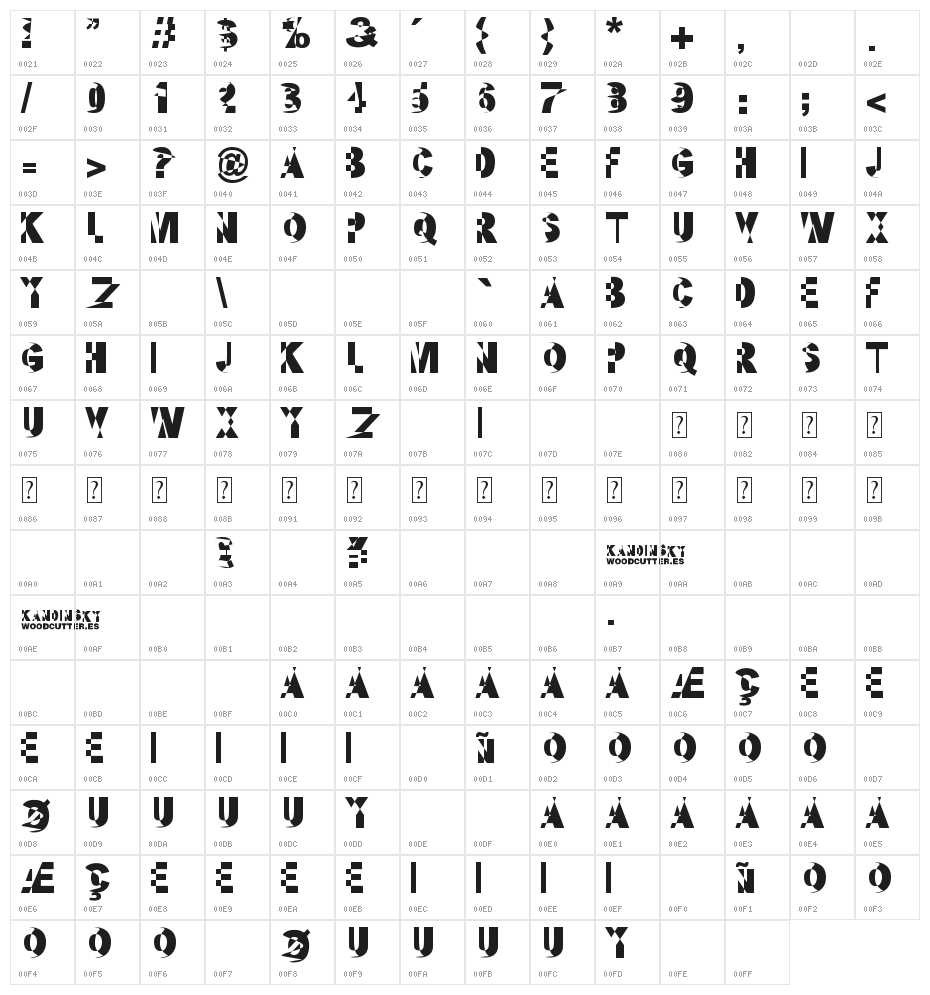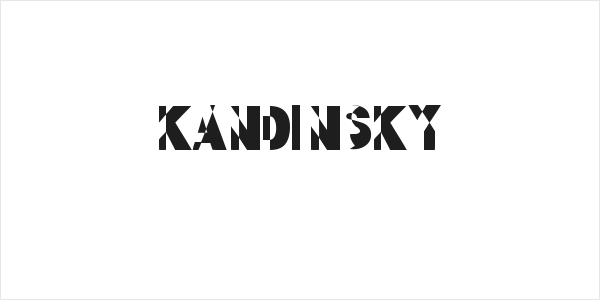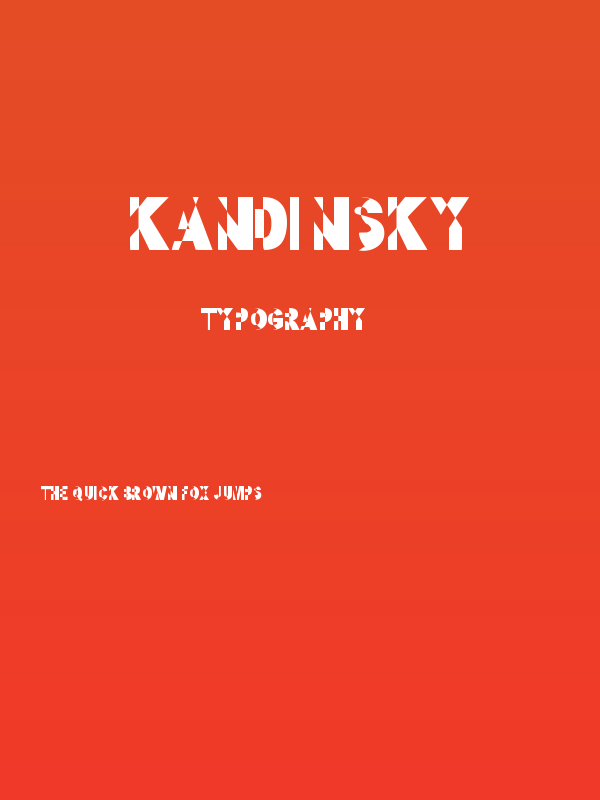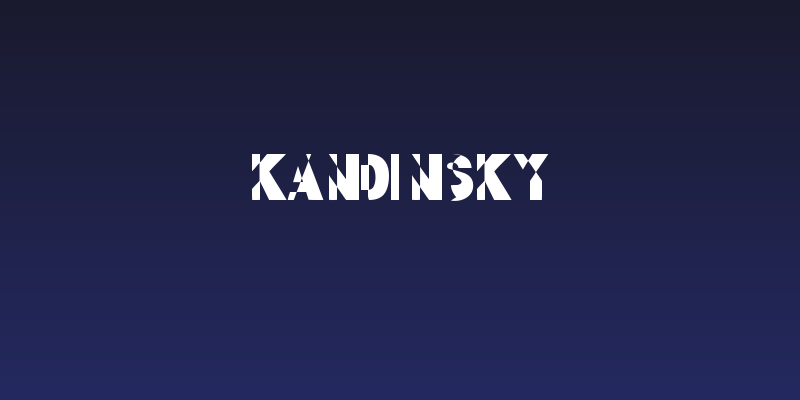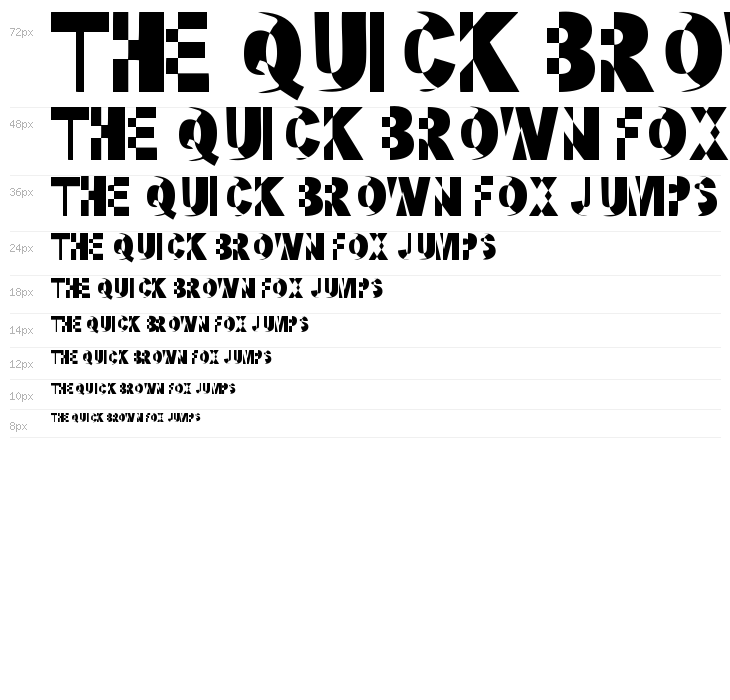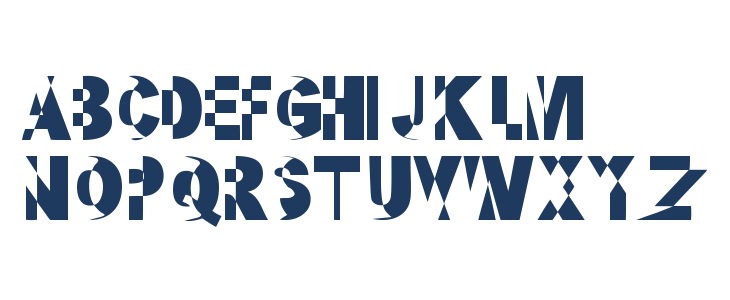
kandinsky Font
kandinsky Description
This font features a bold and striking design with a unique geometric twist. Each character is crafted with sharp angles and distinct cutouts, creating a sense of movement and dynamism. The uppercase and lowercase letters maintain a consistent style, with the uppercase letters being particularly impactful. Numbers and special characters follow the same bold and angular aesthetic, ensuring a cohesive look across all text. The font's high contrast and thick strokes make it ideal for grabbing attention and conveying a modern, artistic vibe.
KANDINSKY UPPERCASE
KANDINSKY LOWERCASE
KANDINSKY OTHER CHARS
| Proposed Projects | Ideal for modern art posters, branding for creative industries, and eye-catching headlines. |